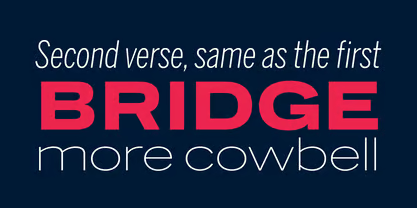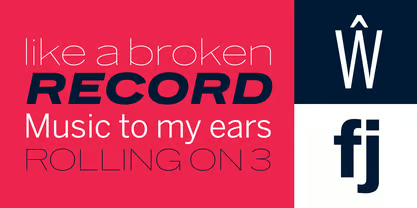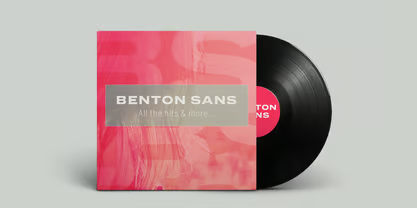
Benton Sans Std Font
Benton Sans Std Font, In 1903, faced with the welter of sanserif typefaces offered by ATF, Morris Fuller Benton designed News Gothic, which became a 20th-century standard. In 1995 Tobias Frere-Jones studied drawings in the Smithsonian and started a redesign. Cyrus Highsmith reviewed News Gothic, and with the Font Bureau studio expanded it into Benton Sans, a far-reaching new series, with matched weights and widths, offering performance well beyond the limits of the original; FB 1995-2012